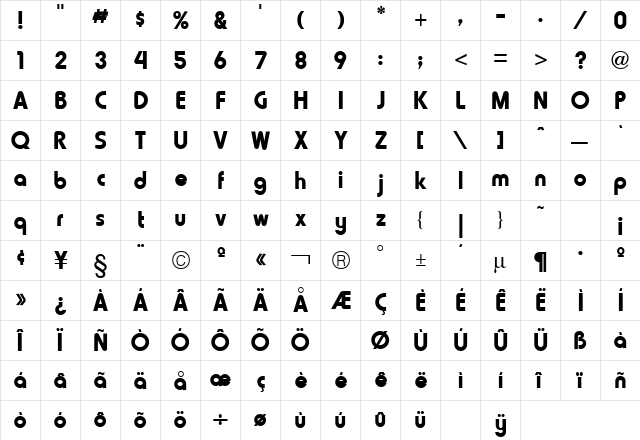
Harry Bold
Design Context for Harry Typeface
Harry is a composed and adaptable typeface that performs quietly and consistently across a wide range of design contexts. Its bold stroke weight gives it real presence on the page.